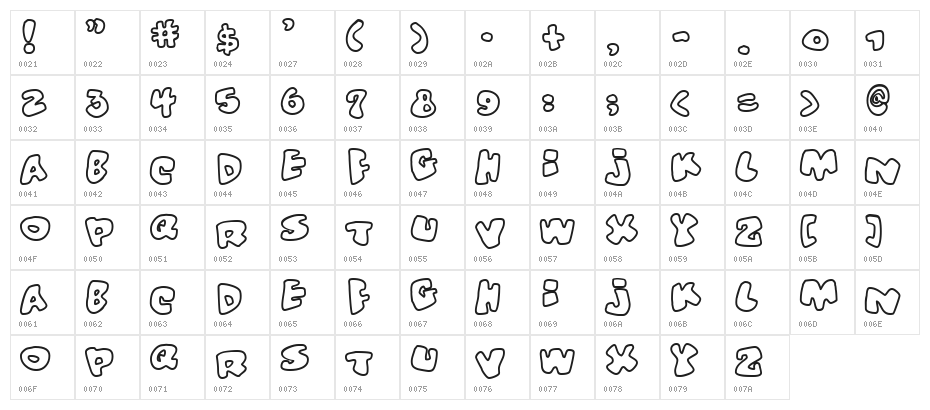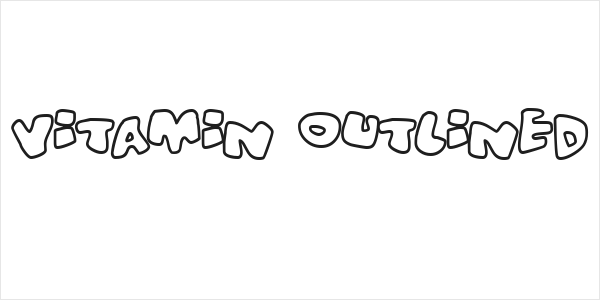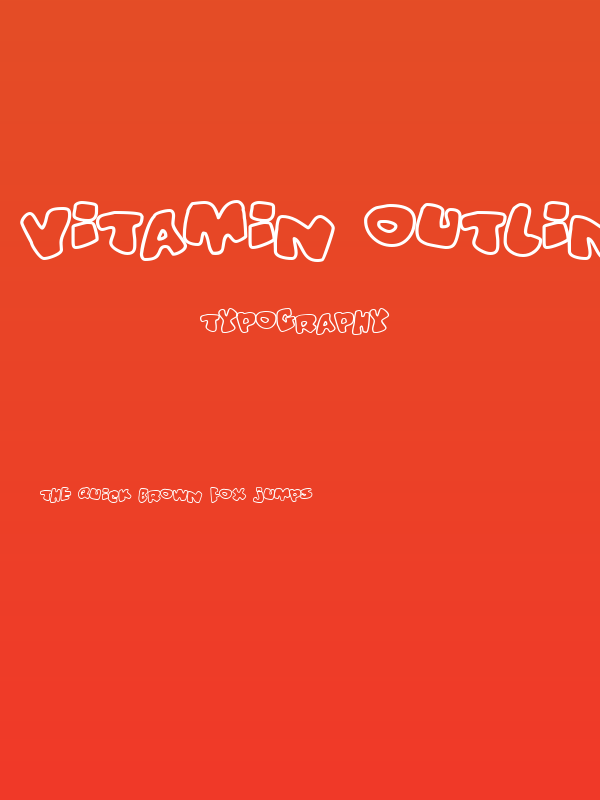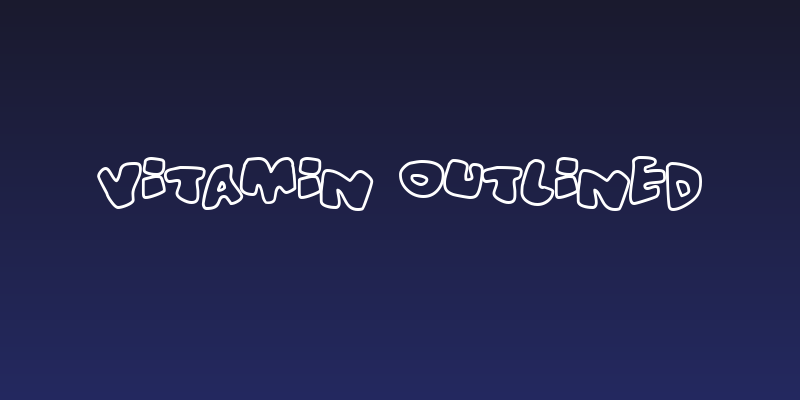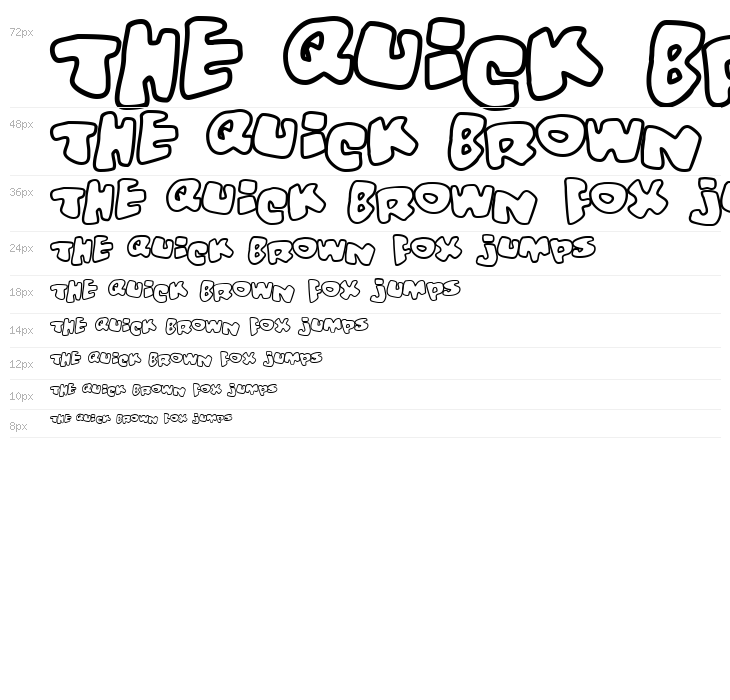
Vitamin outlined Font
Vitamin outlined Description
This playful and bold font features an outlined style that gives it a cartoonish and fun appearance. The characters are rounded and have a bubbly feel, making them stand out with a strong visual impact. The uppercase and lowercase letters maintain a consistent style, with exaggerated curves and a slightly irregular shape that adds to the whimsical nature of the font. The numbers and special characters follow the same design principles, ensuring a cohesive look across all elements. This font is perfect for projects that require a lively and energetic touch.
| Overall Style | Playful, Cartoonish |
| Proposed Projects | Ideal for children's books, comic strips, playful branding, and party invitations. |